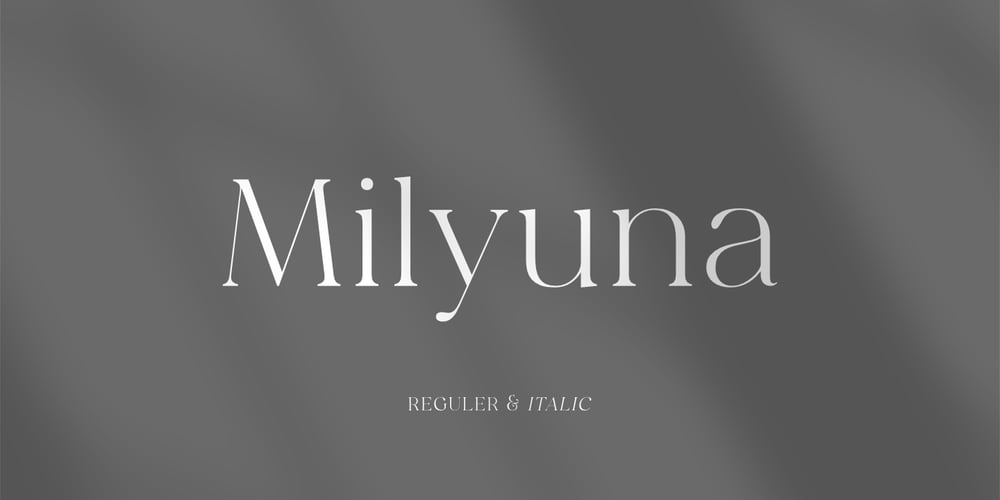
Milyuna Font Family was designed by Teguh Subiyantoro and published by Suby Studio. Milyuna contains 2 styles and family package options. Milyuna is classic and stylish serif with high contrast. We made two different styles Regular and Italic which is suitable any purpose, such as heading, bussines card, quotes, or invitations. Includes: Milyuna Reguler Milyuna Italic Features Lowercase & Uppercase Numerals & Punctuations Multilingual characters (ÀÁÂÃÄÅÆÇÐĐÈÉÊËÌÍÎÏŁÑÒÓÔÕÖØŒŠÙÚÛÜŸÝŽ)